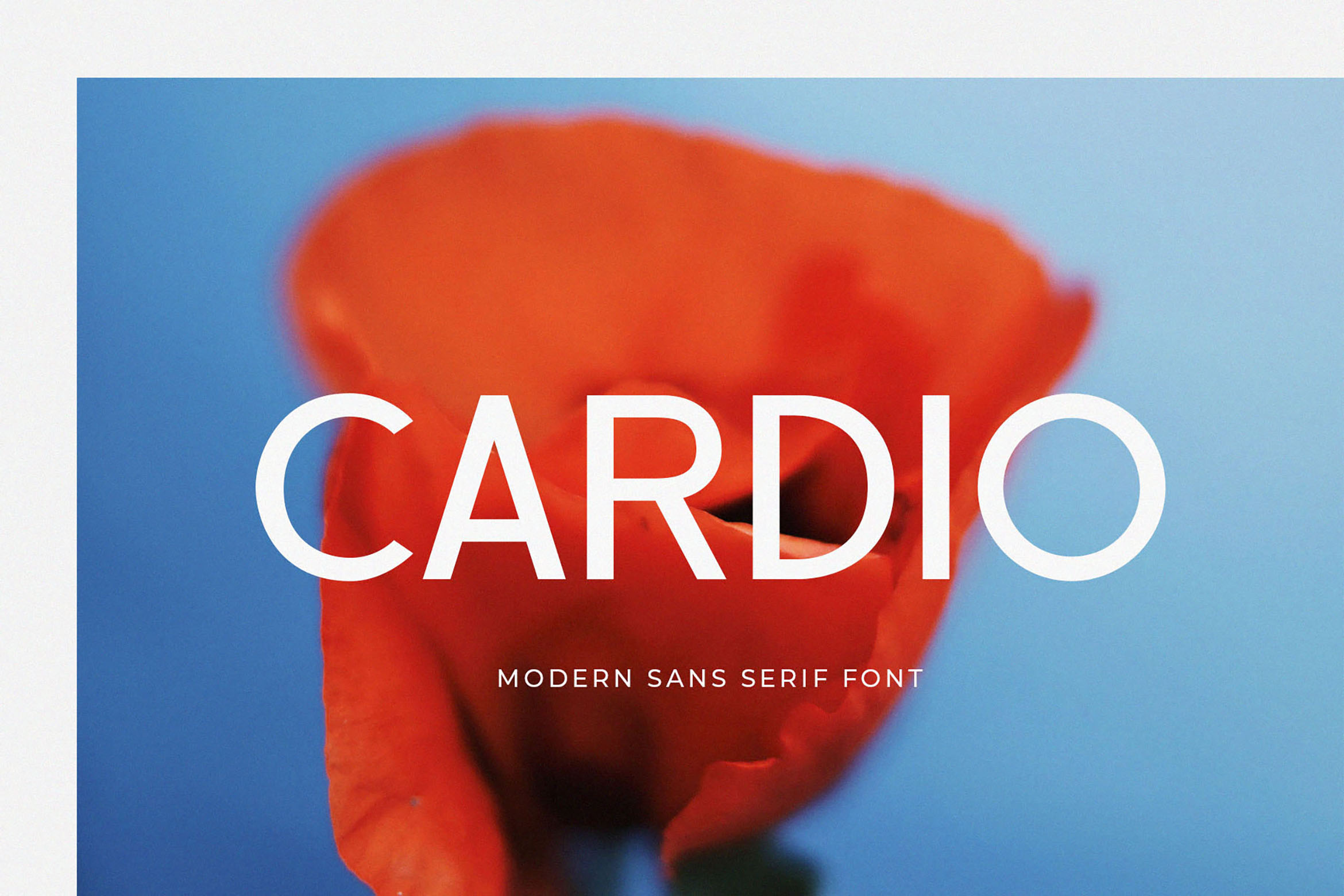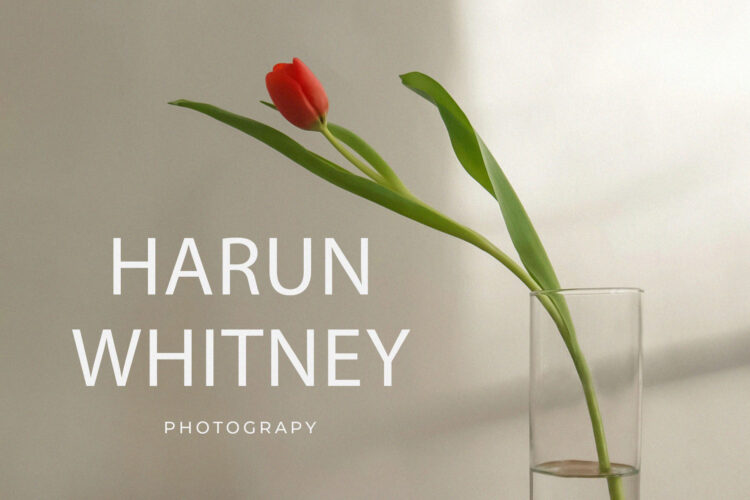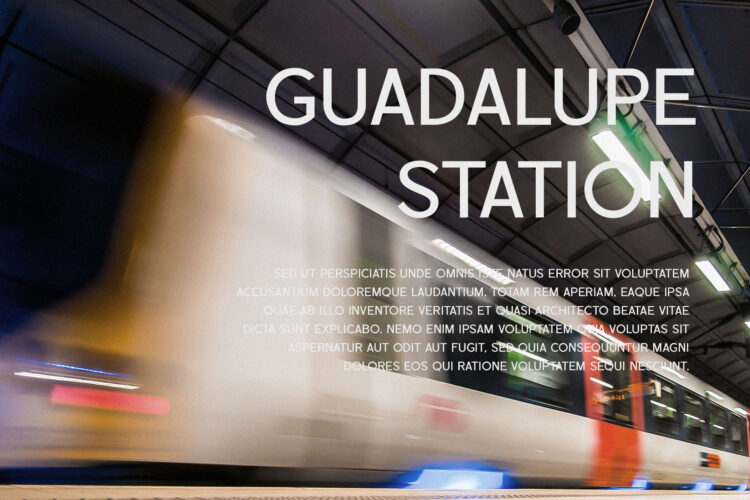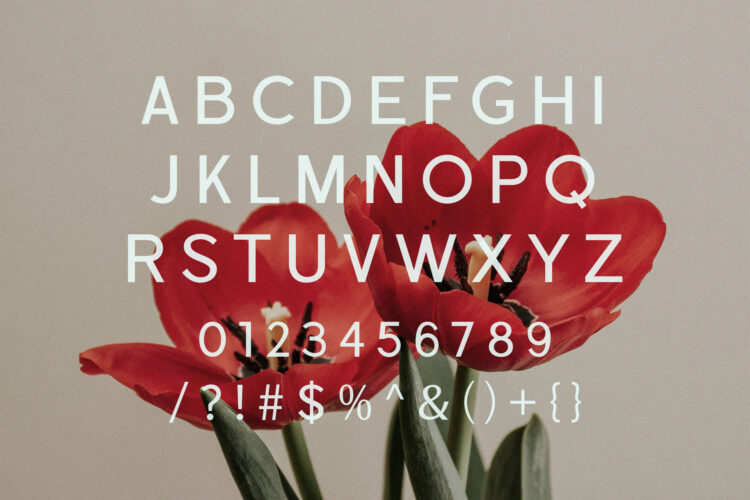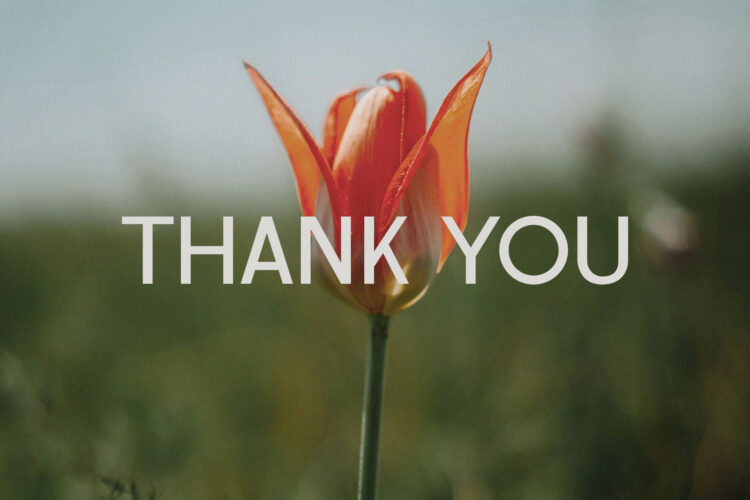
Introducing our new Cardio, modern sans serif font with elegant style this is perfect for branding, logos, invitation, magazines, product packaging and more.
Cardio – Modern Sans Serif Font